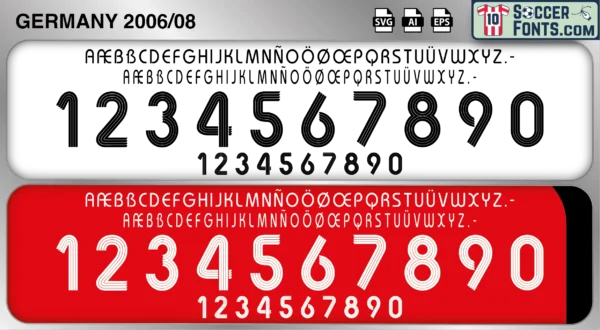
Germany 2006-08 Font
The Germany 2006-08 font is an editable soccer jersey lettering design in vector format inspired by the Germany kit style used during the 2006-08 football seasons. This football font artwork is prepared for football shirt recreations, custom jersey projects, football kit mockups and sports graphic design workflows.
The 2006-08 period followed Germany’s successful hosting of the 2006 FIFA World Cup and represented the continuation of a major revival within German football. The national team captured the imagination of supporters during the home tournament and carried that momentum into the next international cycle. Players such as Michael Ballack, Miroslav Klose, Philipp Lahm, Bastian Schweinsteiger, Lukas Podolski and Per Mertesacker formed the core of a talented squad that combined experience with emerging talent. Germany quickly established itself as one of Europe’s strongest teams and entered UEFA EURO 2008 as a serious contender for the title.
The Germany 2006-08 font became associated with the years immediately following the famous home World Cup and the growth of a generation that would shape international football for the next decade. Germany shirts from this era remain highly collectible because of their connection with the “Sommermärchen” legacy, the rise of Lahm and Schweinsteiger and Germany’s return to the top level of international competition. The Germany 2006-08 font reflects a period when German football embraced a more modern identity while maintaining the competitive spirit that had defined the national team for generations.